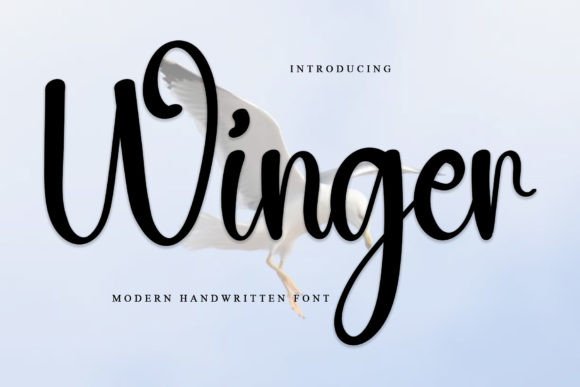
Behold the Winger Font, the epitome of elegance and charm. Immerse yourself in the realm of timeless beauty and impeccable form as you explore this script font's captivating allure. A harmonious blend of balance and diversity, the Winger Font is meticulously crafted to elevate your projects to new heights of visual splendor.
Step into a world of refined aesthetics, where every letter dances with a graceful poise, capturing the essence of classic calligraphy. Winger Font is the perfect companion for your wedding video, adding a touch of timeless romance and sophistication to your special day.
Unleash your creativity and embark on a journey of visual storytelling, where your words come alive with an enchanting allure. Winger Font's PUA encoding grants you effortless access to a treasure trove of stunning glyphs and ligatures, inviting you to explore a world of boundless customization.
Prepare to be swept away by the Winger Font's magnetic pull. Let your imagination soar as you craft enchanting logos, captivating social media posts, and heartfelt invitations that resonate with timeless elegance. This font is your gateway to a world of visual enchantment, where every design element carries a story of love, joy, and everlasting memories.